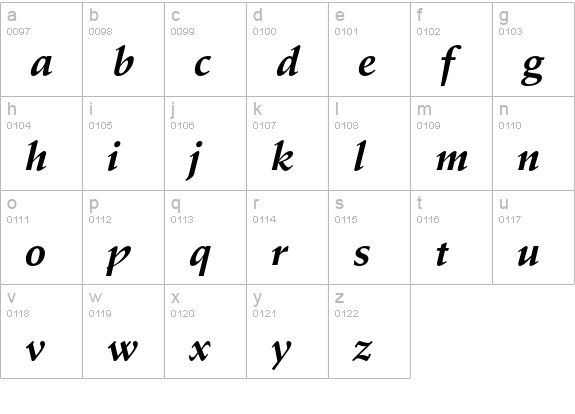
Stempel Schneidler Bold Italic is a strong, high-contrast, italic variant in the Stempel typeface family \xE2\x80\x94 well suited to headlines, attention-grabbing titles, and strong calls-to-action.
Stempel Schneidler Bold Italic font exudes a sense of elegance and sophistication with its bold, slanted letterforms. The strong, confident strokes of this typeface make it perfect for creating eye-catching headlines or adding a touch of flair to any design project. The italicized style adds a dynamic element to the text, making it stand out on the page. This font is a timeless classic that seamlessly blends traditional craftsmanship with modern design sensibilities. Whether used in print or digital media, Stempel Schneidler Bold Italic commands attention and leaves a lasting impression on the viewer. Best of all, this exquisite font is available for free download at FontsMarket.com. Now you can elevate your design projects with the elegance and sophistication of Stempel Schneidler Bold Italic without breaking the bank. Download it today and unleash your creativity with this stunning typeface.